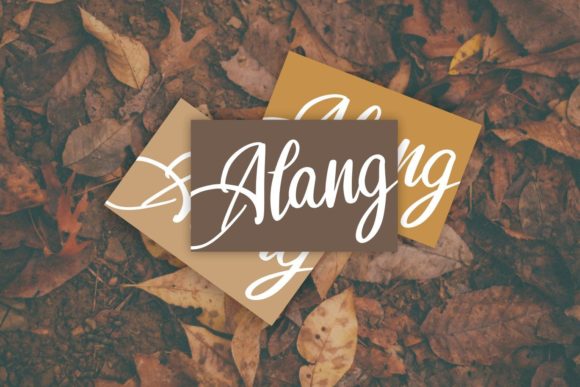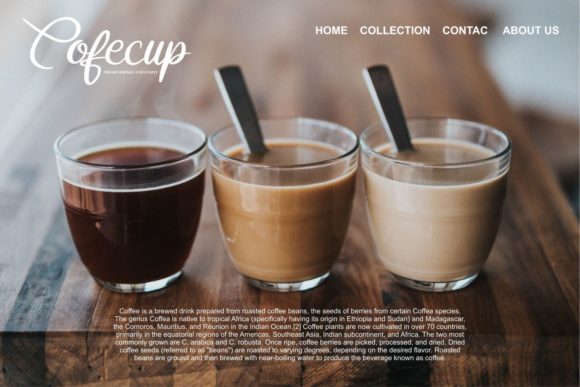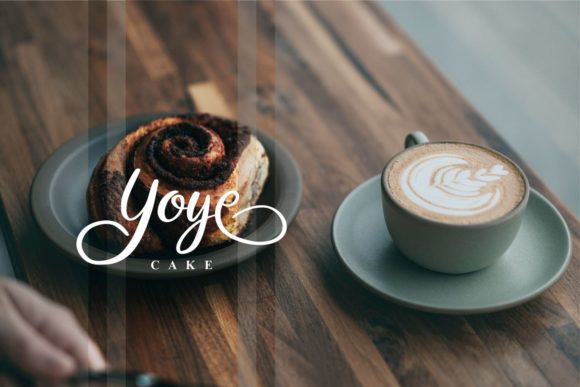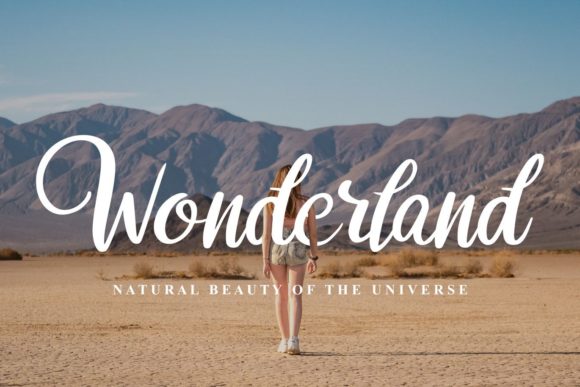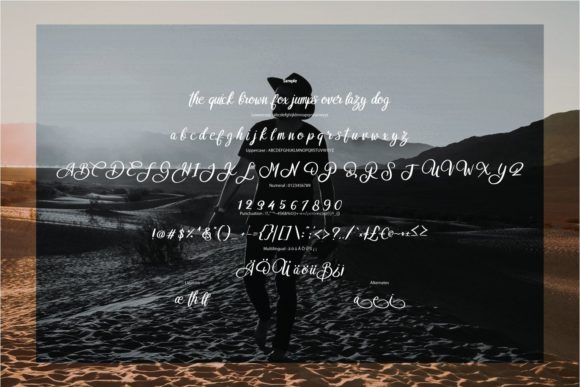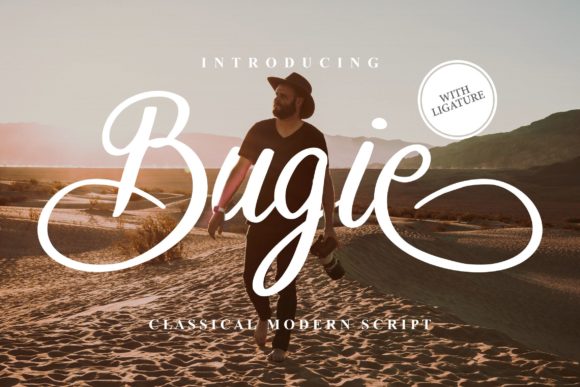
Introducing Bugie Font: Elevate Your Designs with Elegance
Are you on the hunt for a font that exudes elegance and sophistication? Look no further than Bugie Font, a stunning handwritten font that is sure to capture your heart. With its flowing lines and timeless style, Bugie is the perfect addition to any design project. In this article, we’ll dive into the world of Bugie Font, exploring its unique features, and how you can use it to create spectacular designs that leave a lasting impression.
The Story Behind Bugie Font
Bugie Font is a carefully crafted handwritten font, designed to bring a touch of elegance to your favorite projects. Its creator aimed to develop a font that not only stands out but also evokes a sense of sophistication and refinement. With Bugie, you’ll discover a font that is both distinct and timeless, making it an excellent choice for designers and crafters looking to add a personal touch to their work.
Key Features of Bugie Font
So, what makes Bugie Font so special? Here are some of its key features:
- Flowing Lines: Bugie Font boasts flowing lines that give it a sense of movement and fluidity. This feature makes it perfect for designs that require a touch of elegance and sophistication.
- Elegant Touch: The font’s elegant touch is evident in its carefully crafted lettering, which exudes refinement and poise.
- Distinct Style: Bugie Font has an incredibly distinct style that sets it apart from other fonts. Its unique charm makes it an excellent choice for designers looking to create memorable designs.
- Timeless Appeal: Unlike trendy fonts that quickly go out of style, Bugie Font has a timeless appeal that ensures your designs will remain relevant for years to come.
Using Bugie Font in Your Designs
Now that you’re familiar with Bugie Font’s unique features, let’s explore how you can use it in your designs. Here are some ideas to get you started:
- Wedding Invitations: Add a touch of elegance to your wedding invitations with Bugie Font. Its flowing lines and elegant touch make it perfect for formal events.
- Branding and Packaging: Use Bugie Font to create stunning brand identities and packaging designs that exude sophistication and refinement.
- Stationery and Greeting Cards: Add a personal touch to your stationery and greeting cards with Bugie Font. Its unique charm makes it an excellent choice for designs that require a touch of elegance.
- Digital Designs: Bugie Font is also perfect for digital designs, such as social media graphics, website headers, and more.
Tips for Getting the Most Out of Bugie Font
To ensure you get the most out of Bugie Font, here are some tips to keep in mind:
- Experiment with Colors: Bugie Font looks stunning in a variety of colors. Experiment with different color combinations to find the perfect match for your design.
- Play with Sizes: Don’t be afraid to experiment with different font sizes to add visual interest to your design.
- Combine with Other Fonts: Bugie Font pairs well with other fonts. Experiment with different font combinations to create unique and visually appealing designs.
| Font Name | Bugie Font |
| Author | FannanStudio |
In conclusion, Bugie Font is a stunning handwritten font that is sure to elevate your designs to the next level. With its flowing lines, elegant touch, and timeless style, Bugie is the perfect addition to any design project. Whether you’re a designer, crafter, or DIY enthusiast, Bugie Font is an excellent choice for anyone looking to add a touch of elegance and sophistication to their work. So why wait? Fall in love with Bugie’s incredibly distinct and timeless style and use it to create spectacular designs that leave a lasting impression.